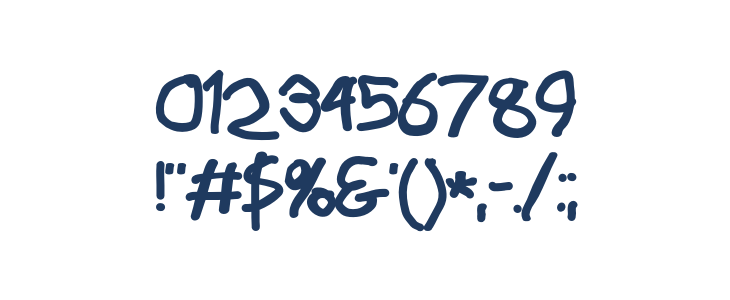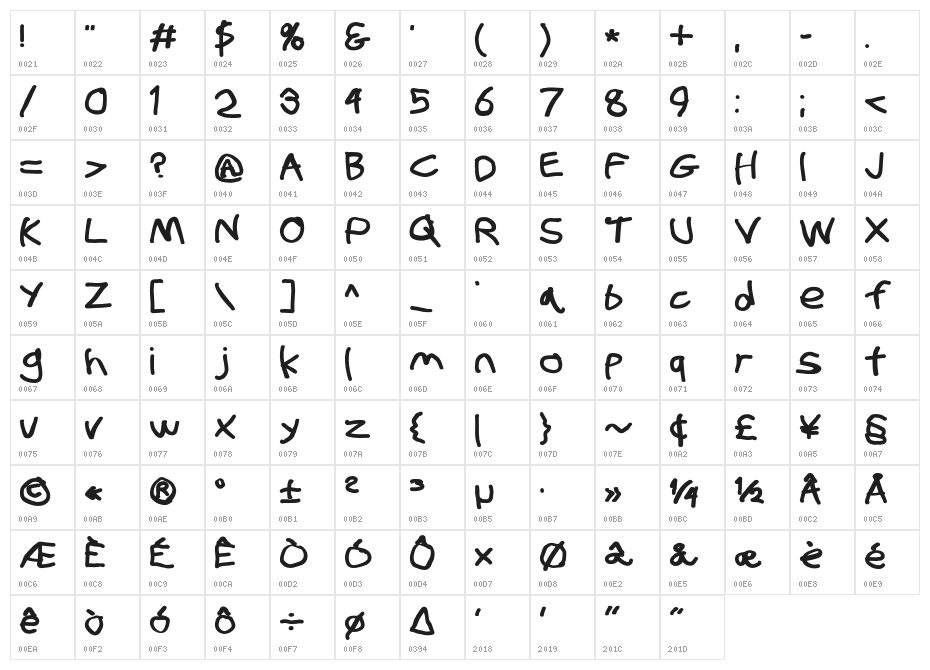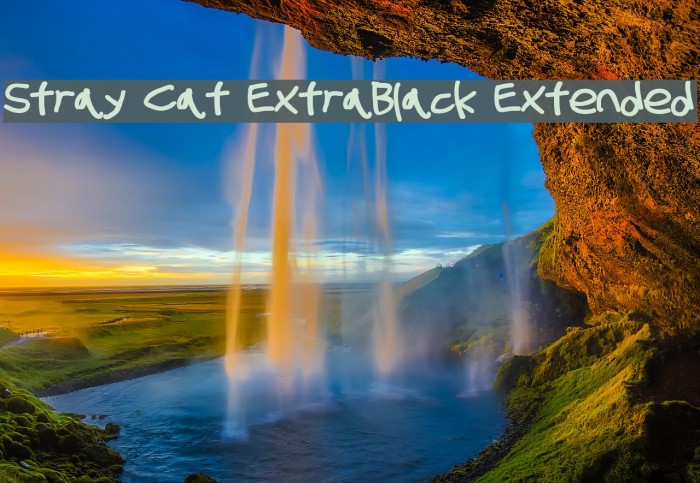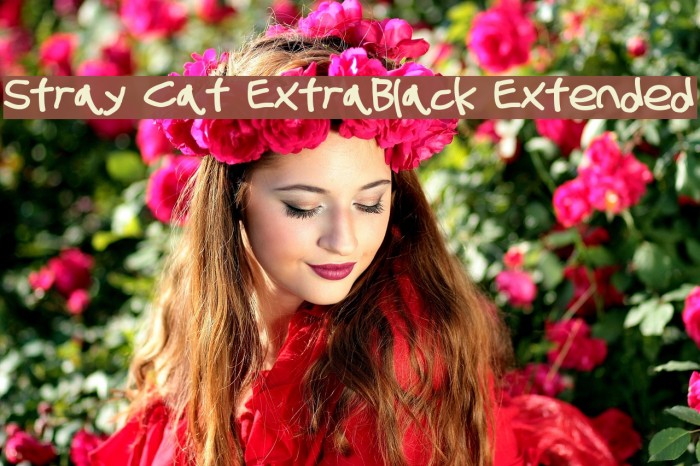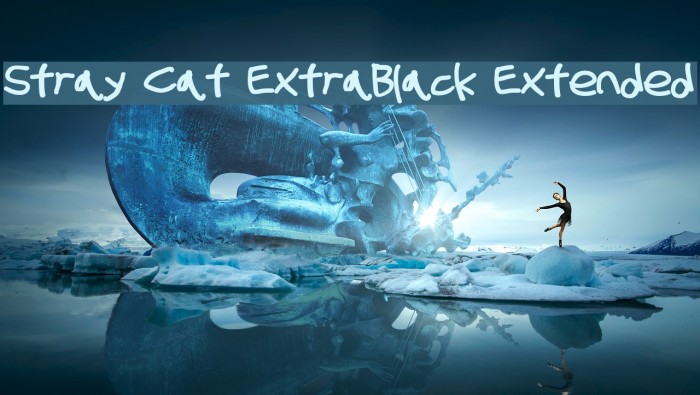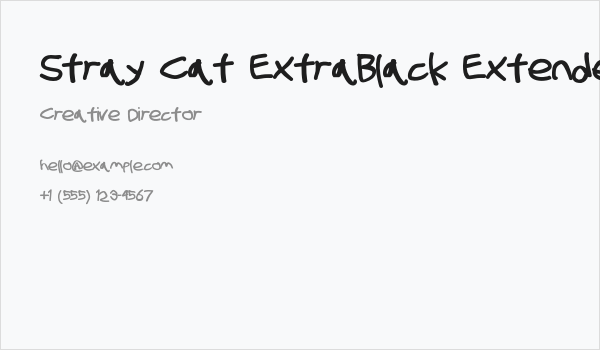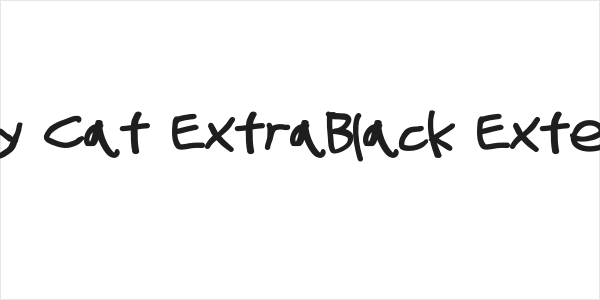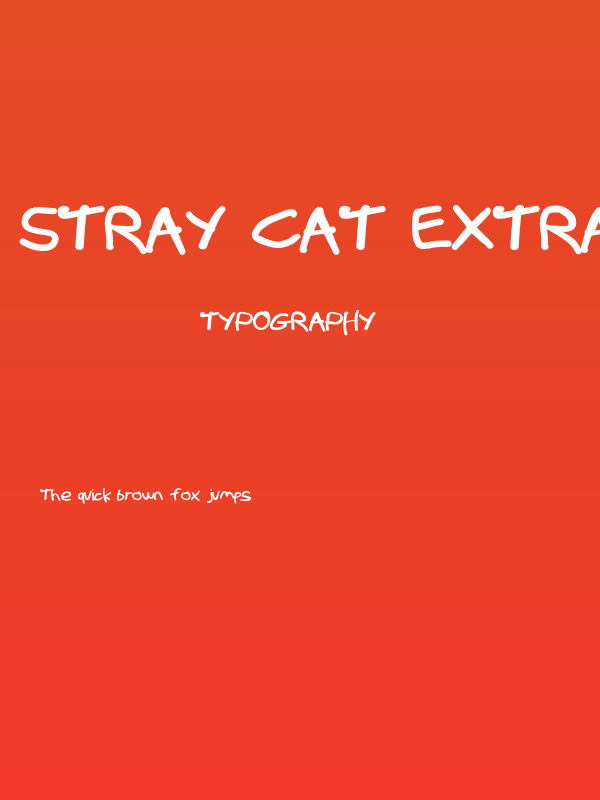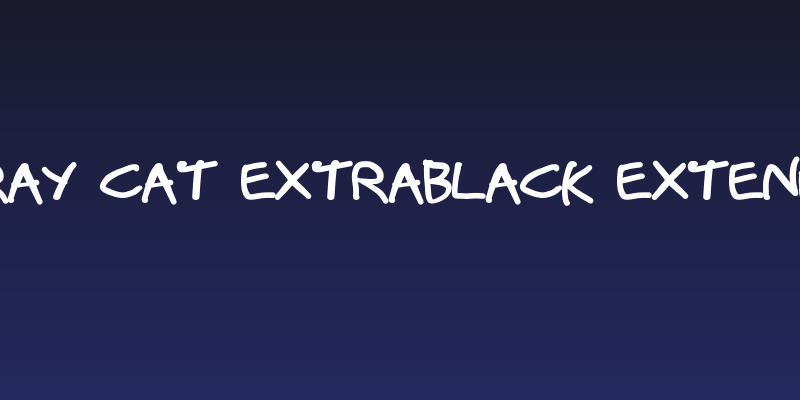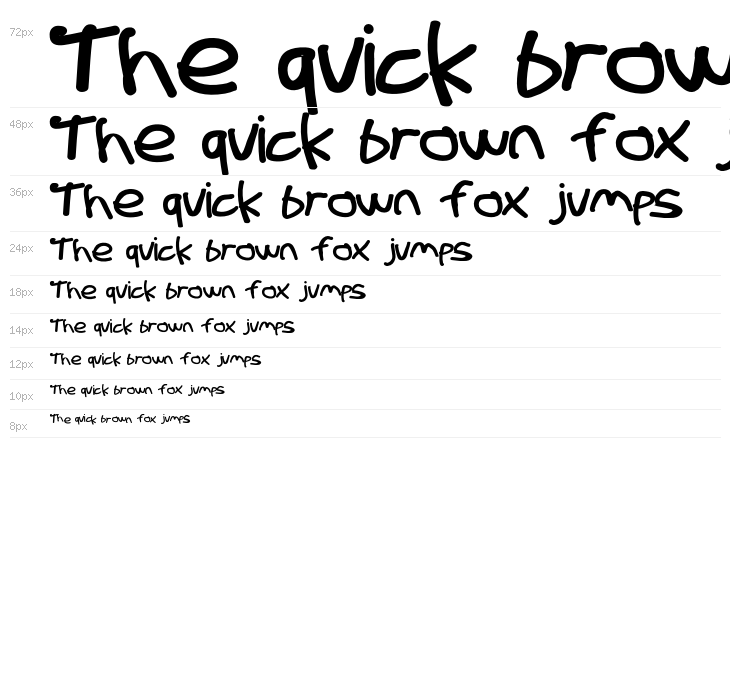
Stray Cat ExtraBlack Extended Font
Stray Cat ExtraBlack Extended Description
This font features a bold, handwritten style with a playful and casual appearance. The characters are thick and rounded, giving a sense of friendliness and approachability. The strokes are consistent in weight, providing a uniform look across all characters. The letters have a slightly irregular baseline, enhancing the informal and dynamic feel. The font includes a full set of uppercase and lowercase letters, numbers, and a variety of special characters, making it versatile for different uses. Its extended width allows for easy readability, even at smaller sizes.
| Proposed Projects | Ideal for children's books, casual branding, greeting cards, and playful social media graphics. |